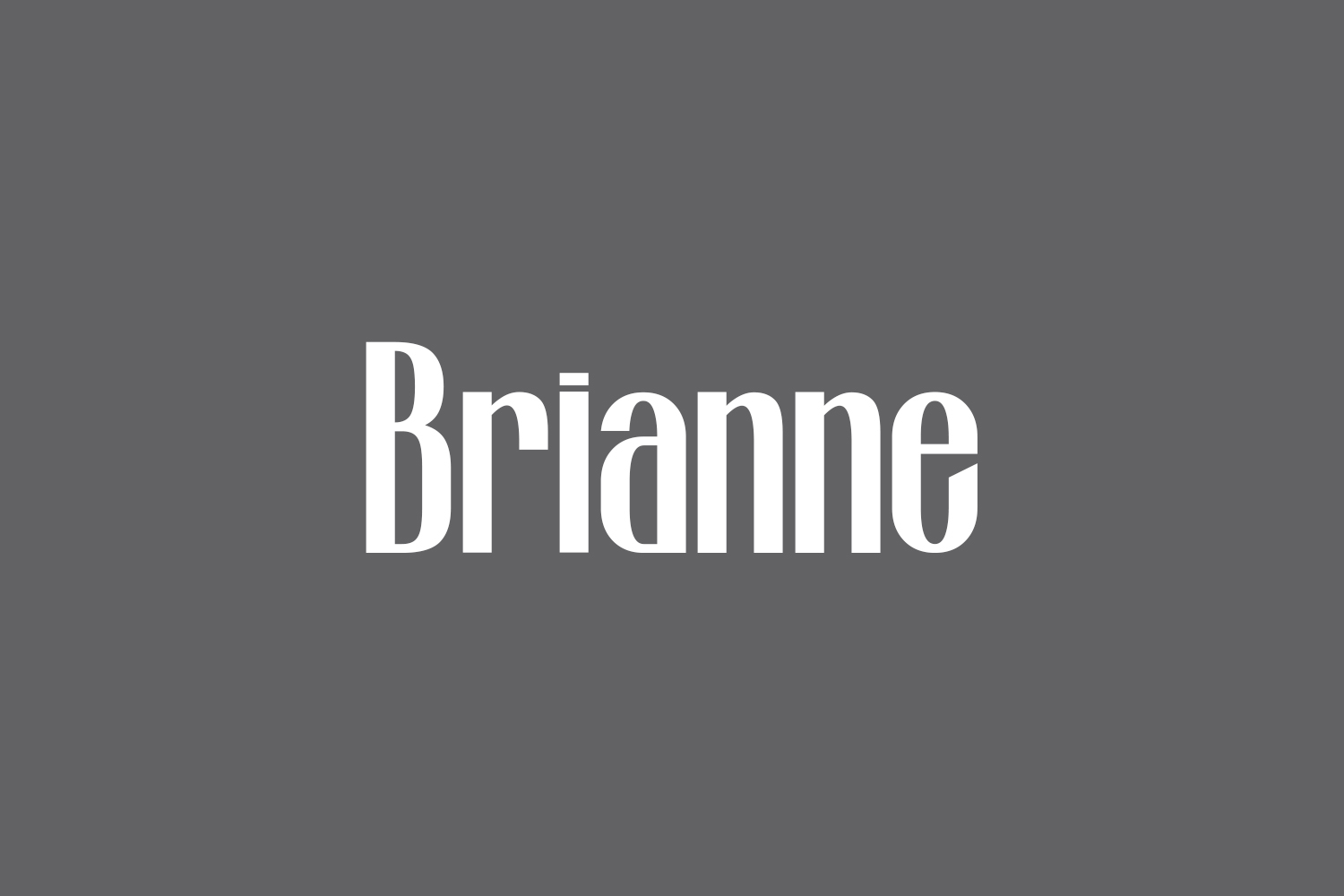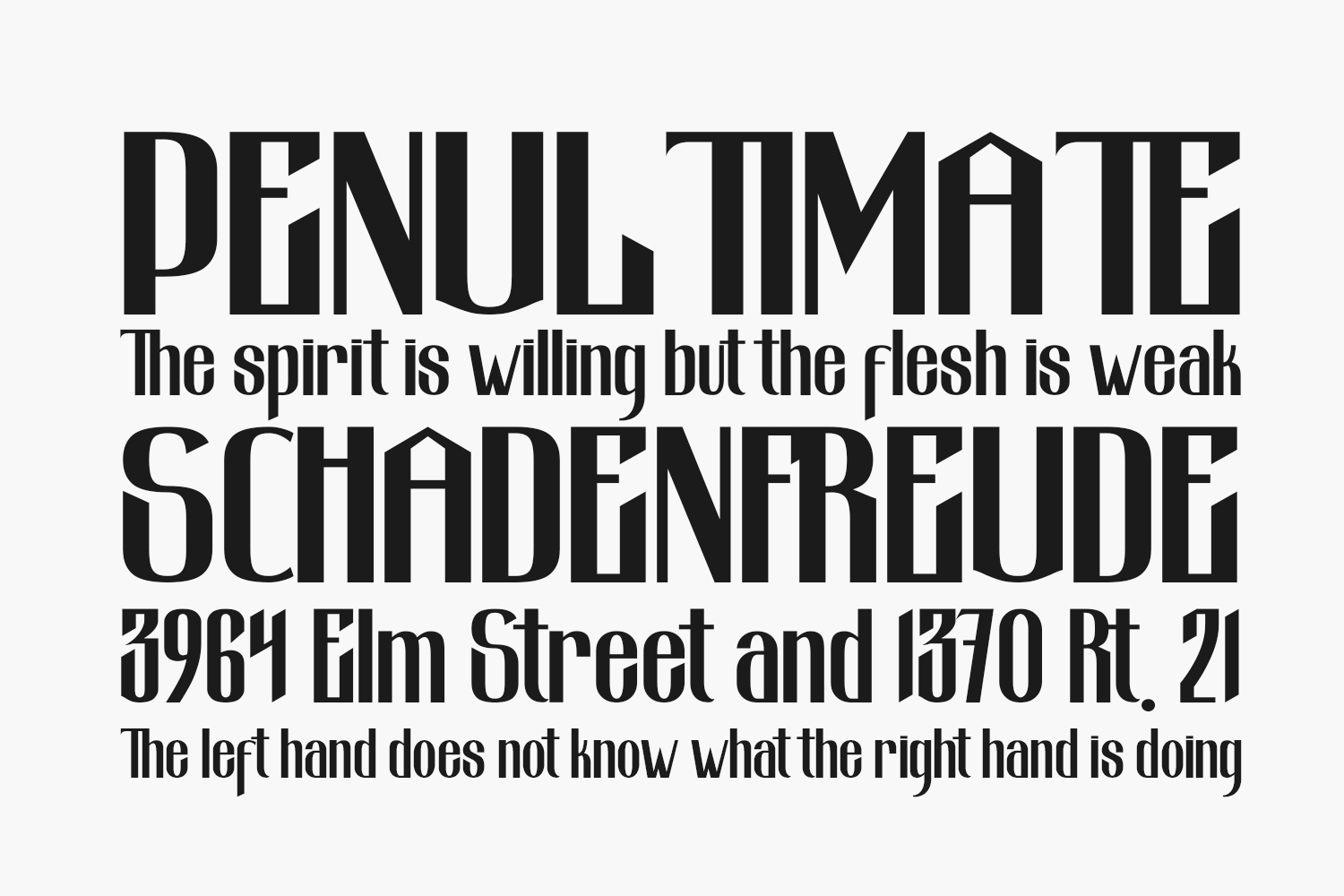
Brianne Free Font, a timeless and striking display font, boasts a retro charm with its simplicity. Elevate your creative visions with this font that ensures each design stands out. Download the font for free if you need it for personal use or purchase the full version for commercial use.
Designed by Typotopia Studio